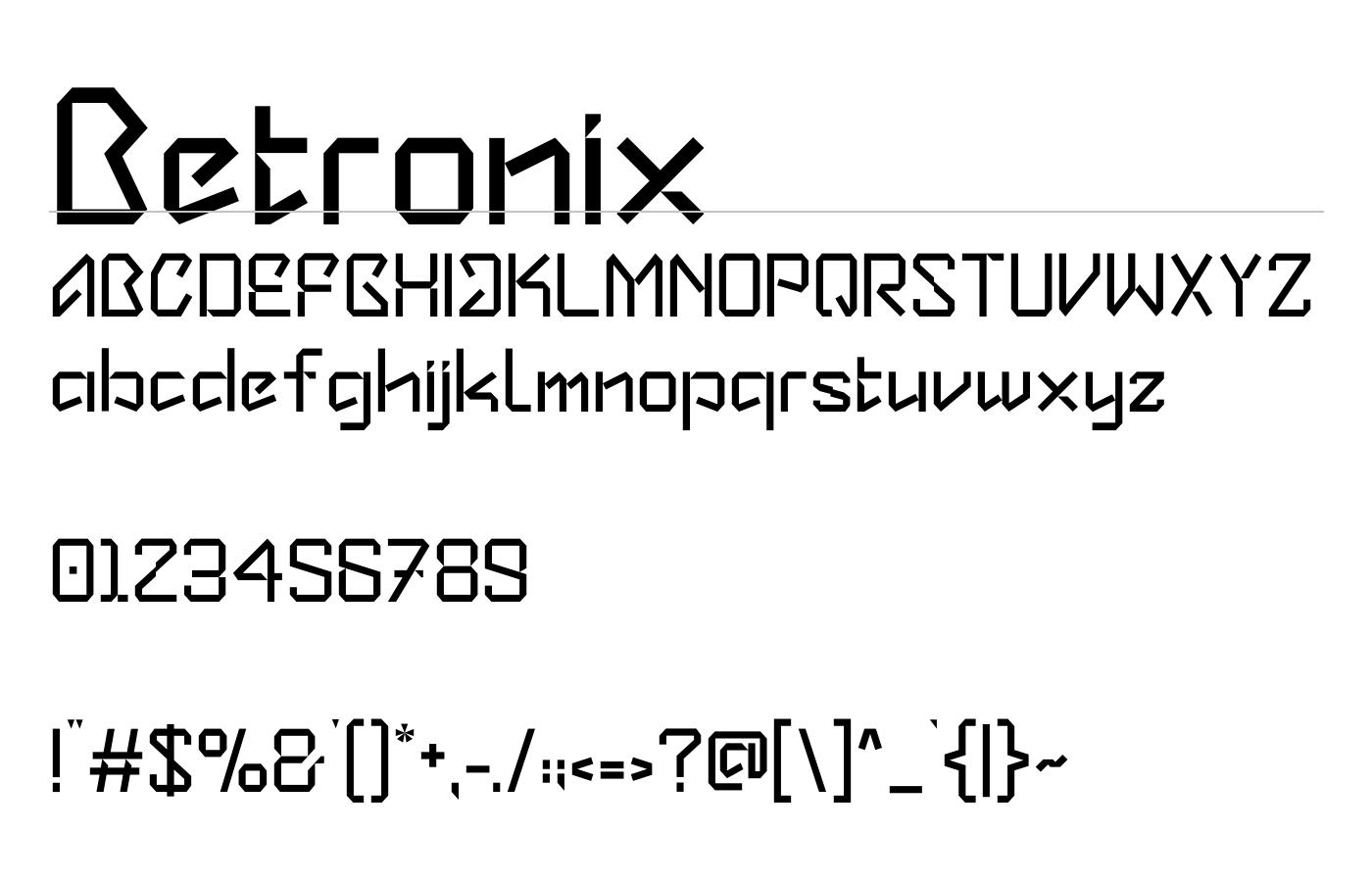
Betronix is a sharp, geometric sans serif font with a technical, futuristic feel. Its angular letterforms and consistent stroke weight give it a bold, modern look that works well for technology, gaming, or science fiction branding and headlines. This font stands out with its unique, mechanical style, making it ideal for projects seeking a distinct, cutting-edge vibe.
Betronix Font